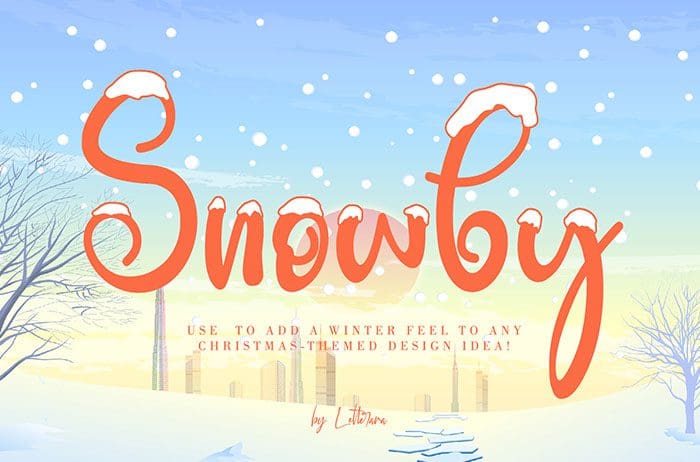
Free Snowby Brush Font
Snowby Brush Font
Free Snowby brush font is a sweet and snowy display font with a magical feel. Each of its letters is covered in snow, making it the ideal font for any Winter-project! Created this font by Thomas Aradea. You can also search more free Brush Fonts. Thanks!